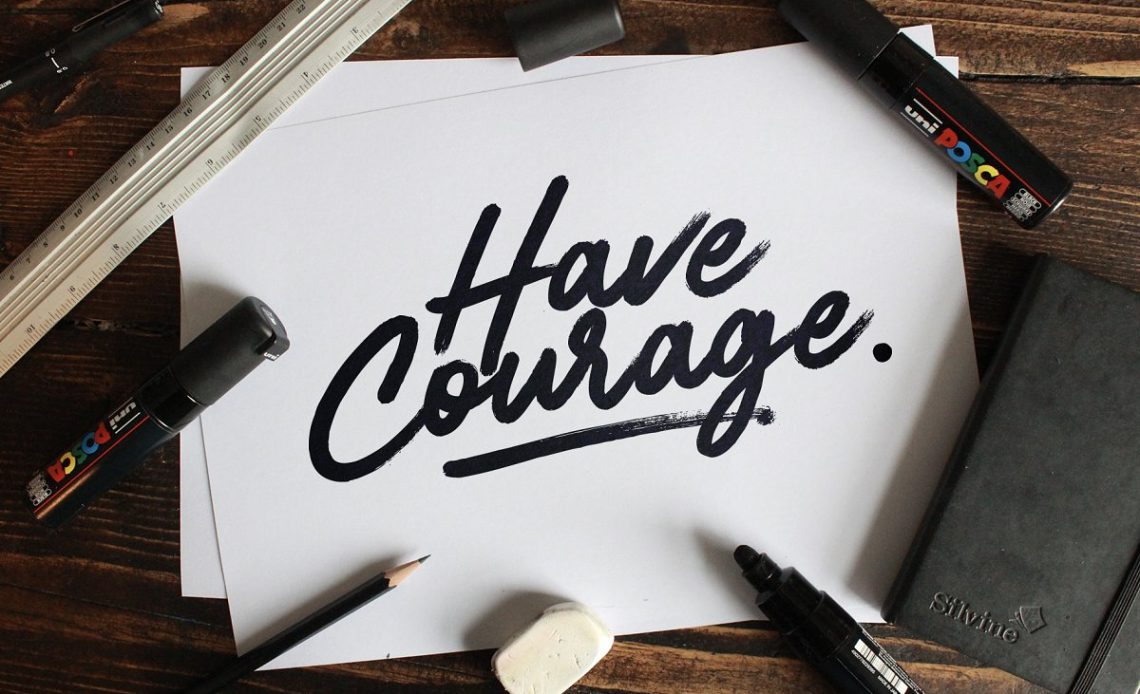
Introducing Primed Bold Brush Font, a hand-drawn script font created by Sam Parrett. This bold and chunky font is the perfect choice for display text, logos, handwritten quotes, and product packaging that demands attention.
Primed is an authentic brush font made with real marker pens, giving it a unique and organic feel. It comes with a full set of alternate upper and lowercase characters, as well as 18 swashes that add a custom touch to your lettering.
In addition to its impressive style, Primed also features 47 ligatures that help letters connect and flow more naturally, ensuring a seamless and professional finish to your work.
With language support for 22 languages, including English, French, Italian, Spanish, and Portuguese, you can use Primed to create designs for a global audience.